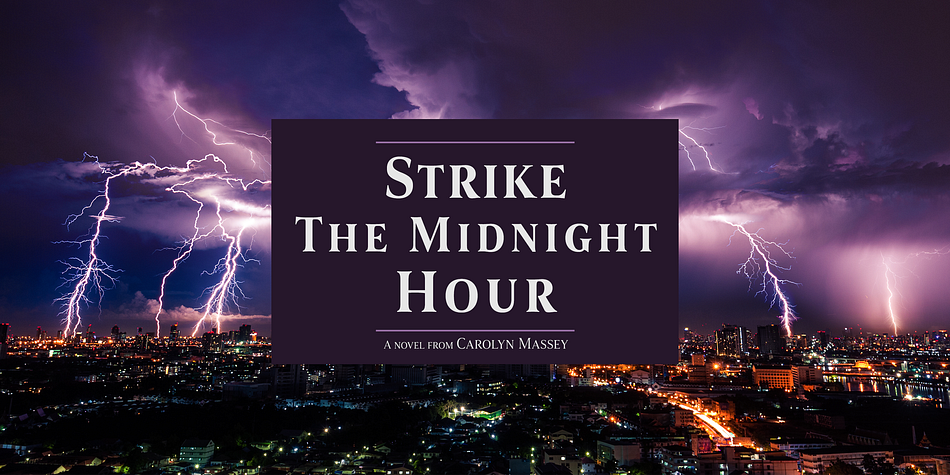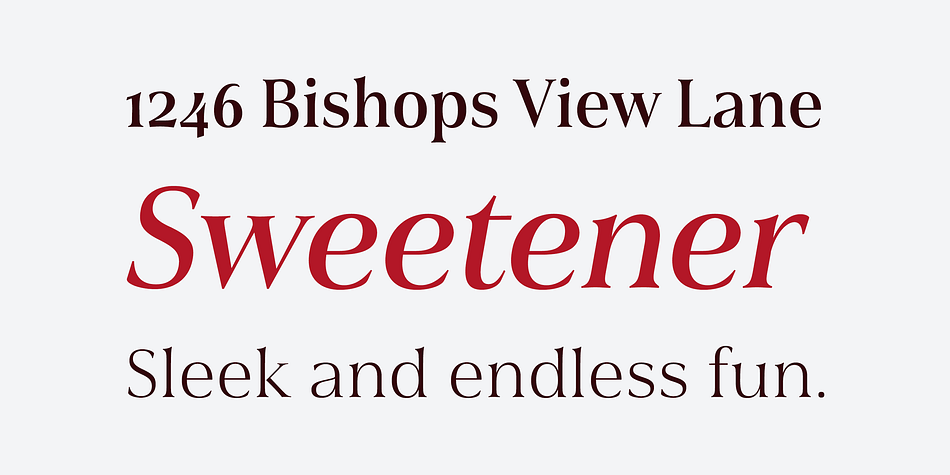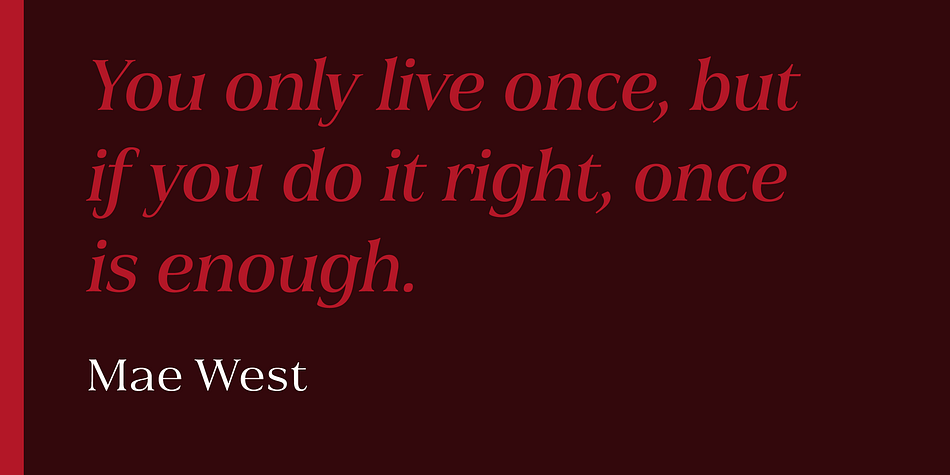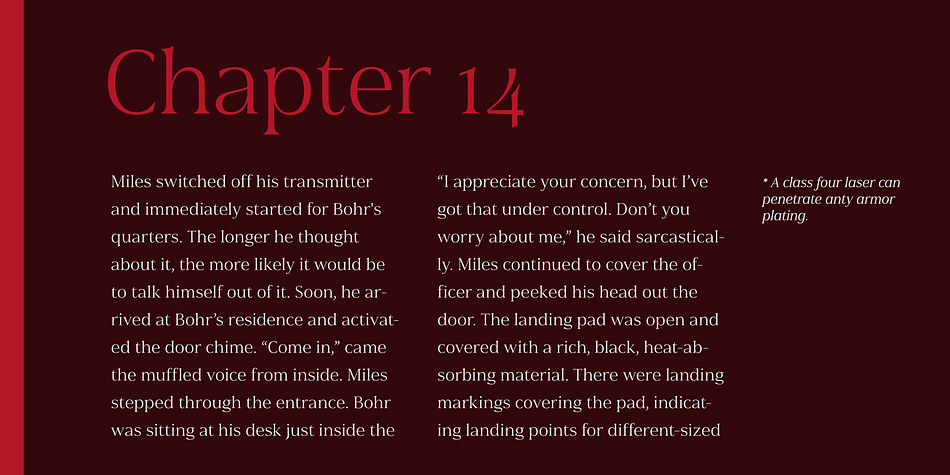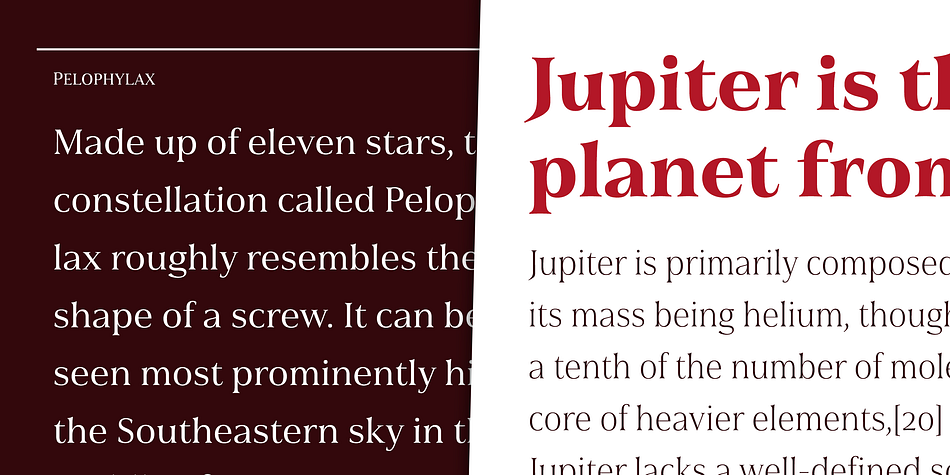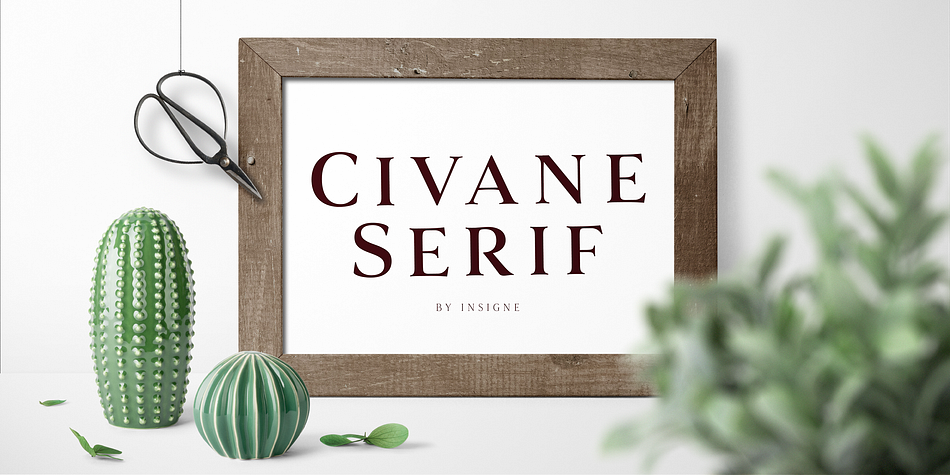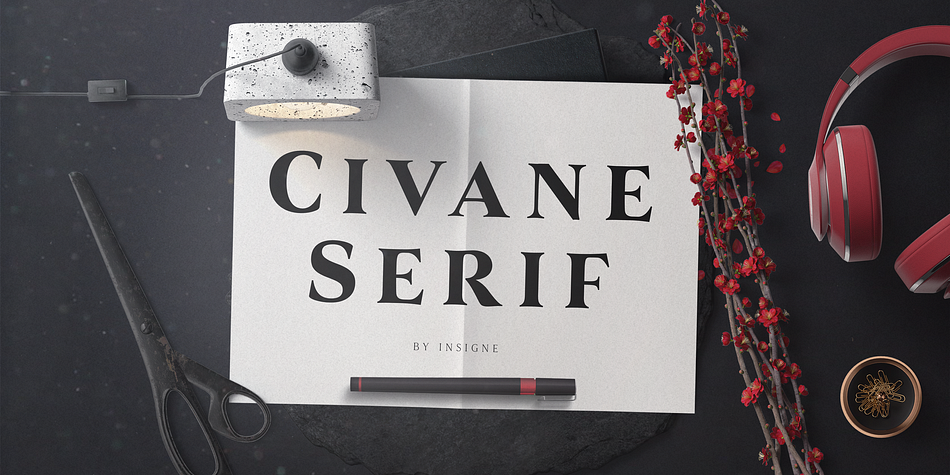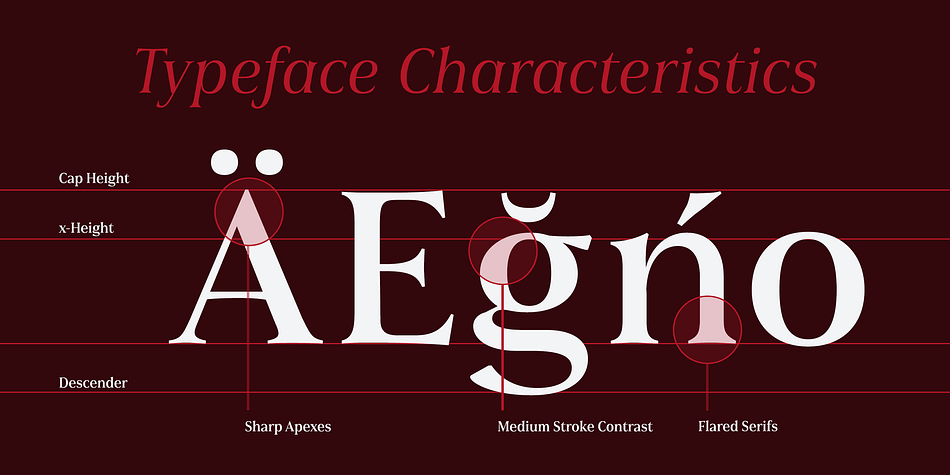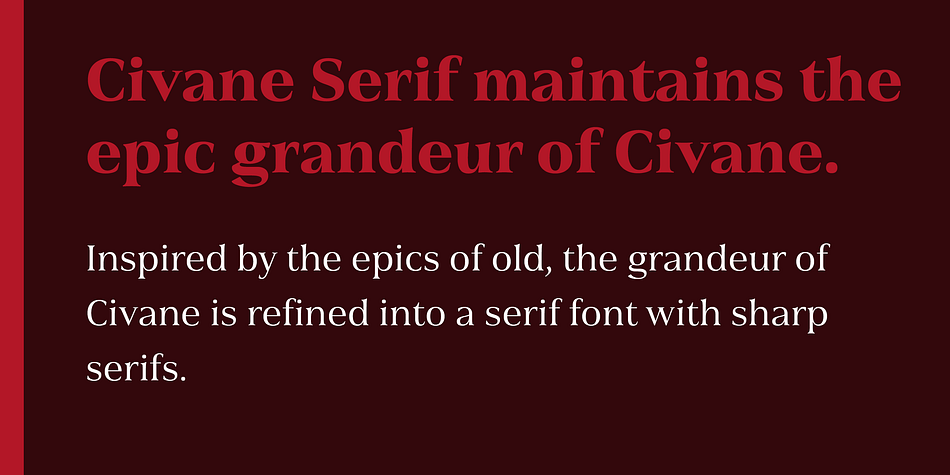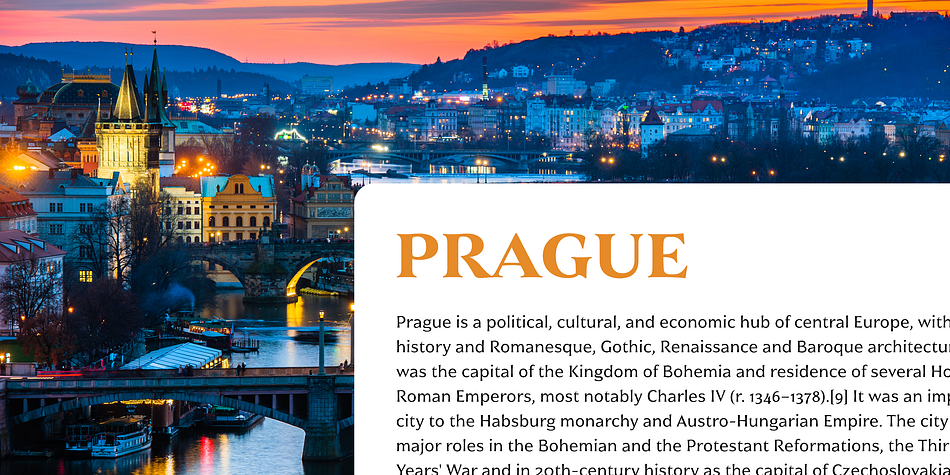
Designed by Jeremy Dooley, Civane Serif is a serif font family. This typeface has forty-eight styles and was published by Insigne Design.
Civane Serif maintains the epic grandeur of Civane with a text-friendly typeface. Inspired by the great tales of old, the grandeur of Civane is refined into a serif font with sharp serifs.
Civane Serif is a contemporary sans-serif typeface with a robust character set. The Civane Serif family of typefaces supports 48 Latin-based Western, Central, and Eastern European languages, as well as the Baltic States and Turkey. Ligatures, small caps, embellishments, and a wide range of numerals are all accessible in OpenType, including proportional and tabular-width numbers, old style figures, fractions, inferiors, and superiors.
Civane Serif is one of the finest choices for serif text setting. The italic or bold weights, as well as the roman set in titling caps, will impart a feeling of serene dignity on posters and webpages. Civane Serif’s craftsmanship shines through with its higher contrast modern design, perfect for high-end premium goods and services.
Designer | Jeremy Dooley |